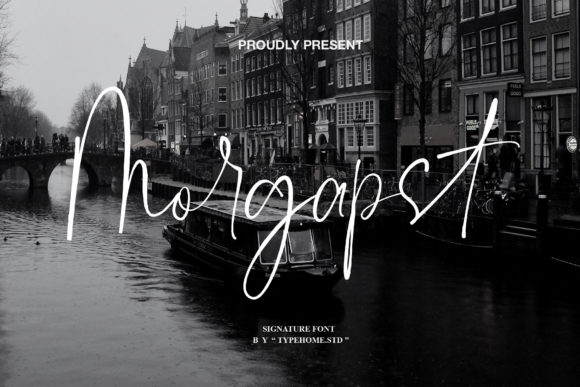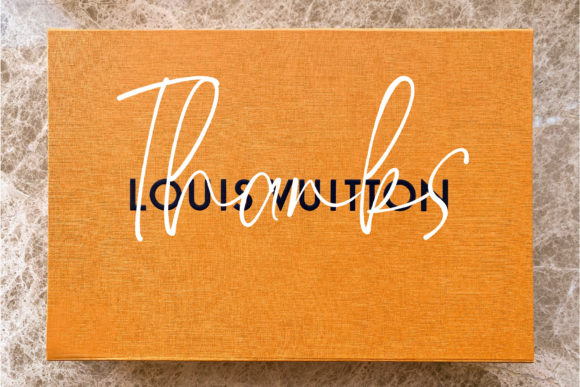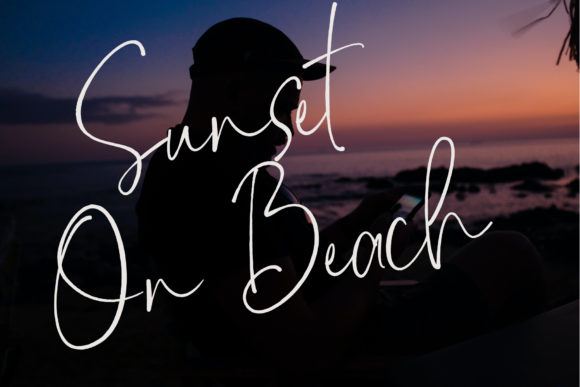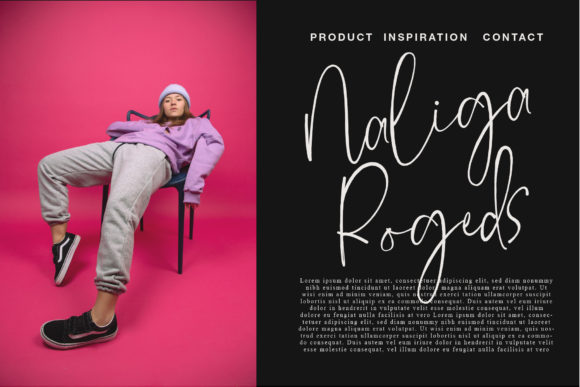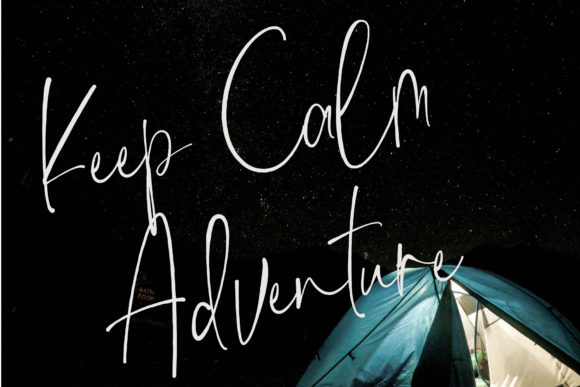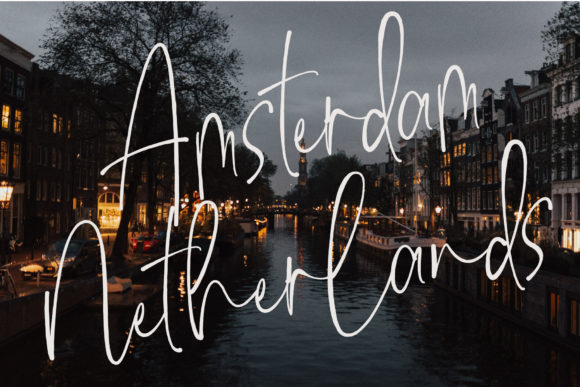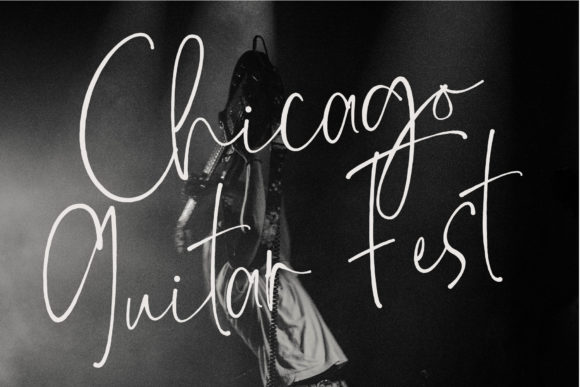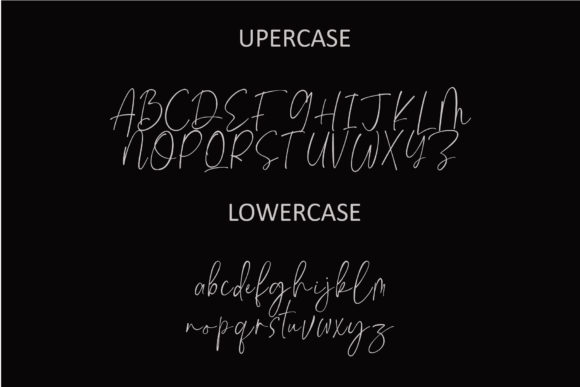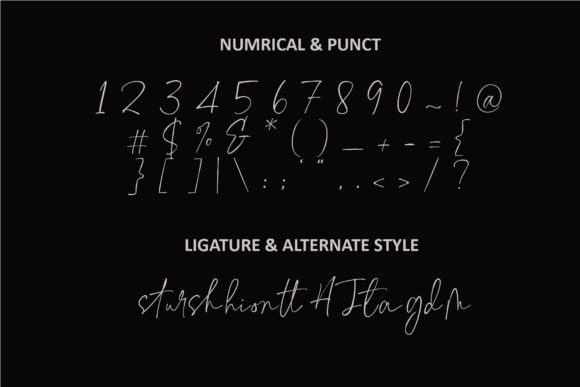
Morgapst Font
About Morgapst Font
Morgapst is a beautiful and relaxed script font. Suitable to a wide variety of designs, this font has the potential to become your favorite go-to font, no matter the occasion!